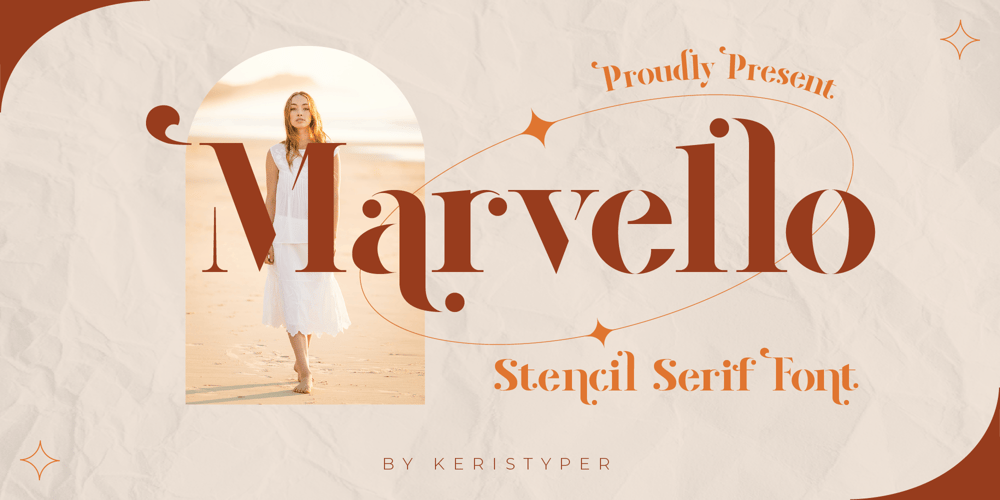
Marvello Font Family was designed by Tezar Tantular and published by Keristyper Studio. Marvello contains 1 styles and family package options. Marvello a classy elegant stencil serif font is perfect for any project. This font is good for logo design, Social media, Movie Titles, Books Titles, short text even long text letters, and good for your secondary text font with sans or serif.**Featured:*** Standard Uppercase & Lowercase* Numeral & Punctuation* Multilingual : ä ö ü Ä Ö Ü ß ¿ ¡* Alternate & Ligature* PUA encodedWe recommend programs that support the OpenType feature and the Glyphs panel such as Adobe applications or Corel Draw. so you can use all the variations of the glyphs.Hope you enjoy our fonts!